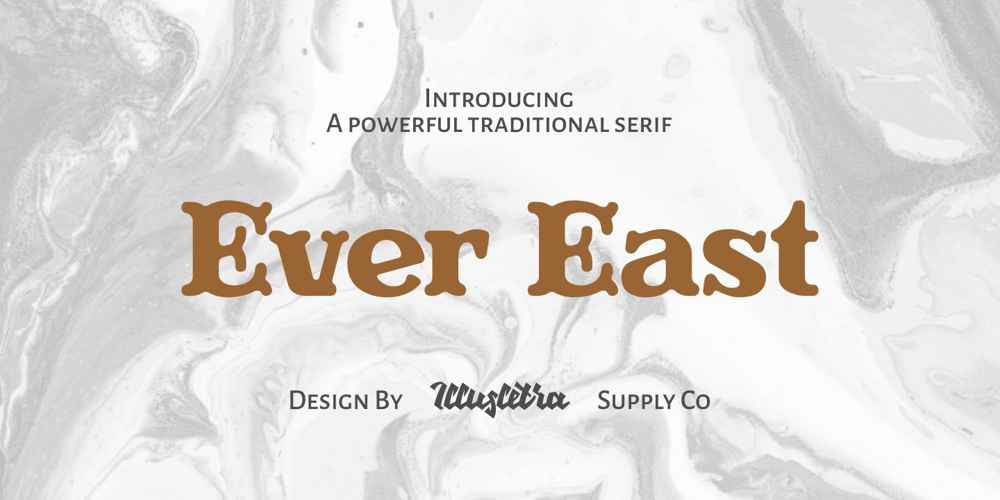
ICR Ever East Serif Font Family was designed by Farhan Sudibya and published by Nocturnal Workspace. ICR Ever East Serif contains 1 styles and family package options. Ever East is a stylish font that is both classic and minimal. Ever East has a regular version plus multilingual support.Includes: Letters, numbers, punctuation, multilingual support. Regular versions